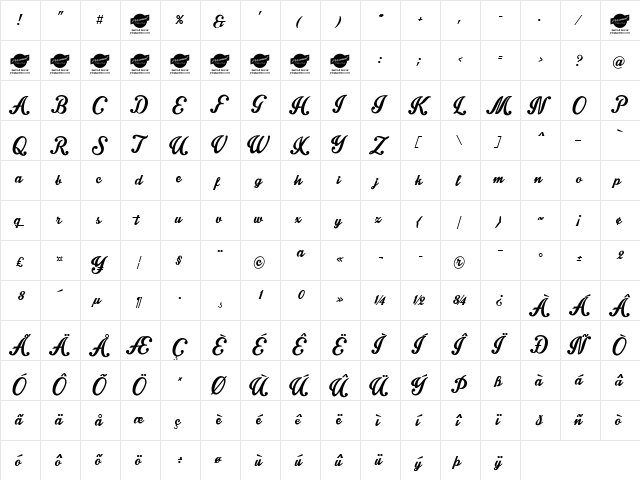
Intrique Script Personal Use Regular Font Preview
Intrique Script Personal Use Regular
Intrique Script Personal Use Regular Font Details
Design Context for Intrique Script Personal Use Typeface
Intrique Script Personal Use brings a calligraphic fluidity to the page — its connecting strokes and expressive curves give it an unmistakably human quality.
Font Pairing: Combine Intrique Script Personal Use with a simple geometric sans for maximum contrast — the tension between flowing curves and clean structure is a classic typographic pairing.
Pro Tip: Use Intrique Script Personal Use for short runs of text — names, titles, or taglines. Extended body copy in script faces tires the eye quickly.